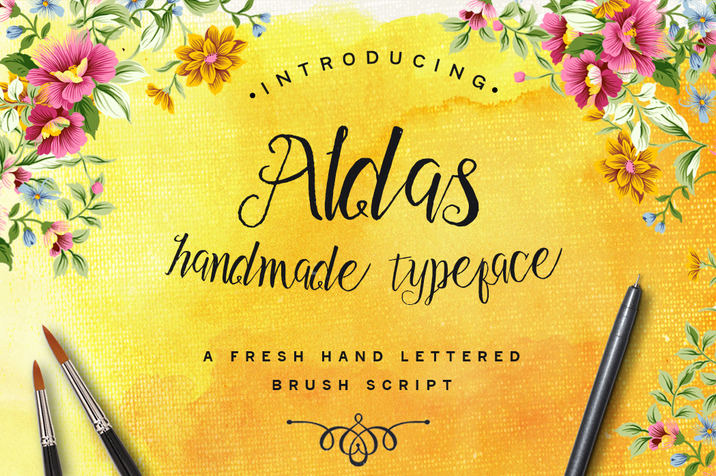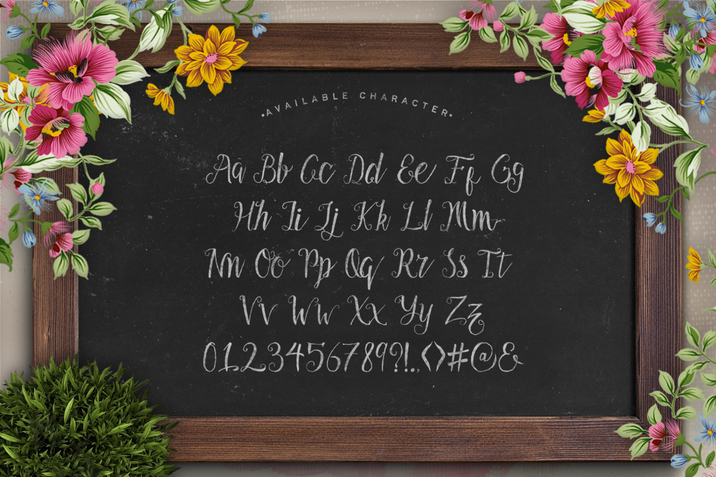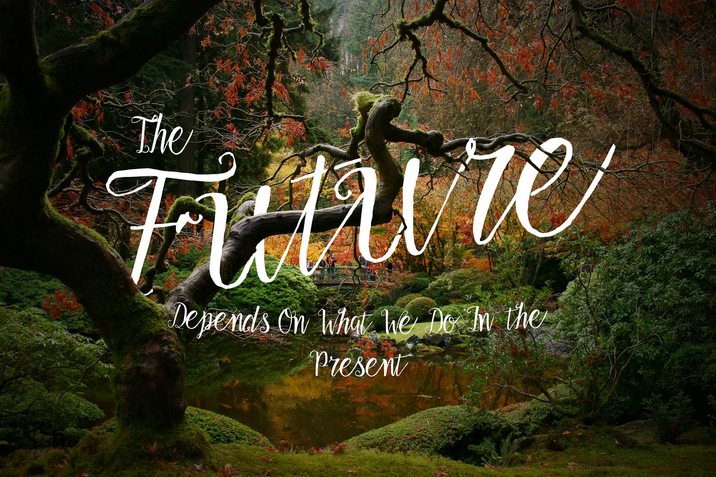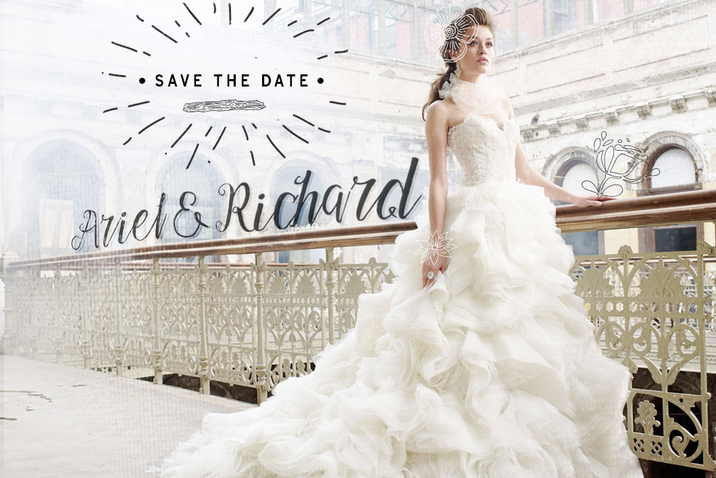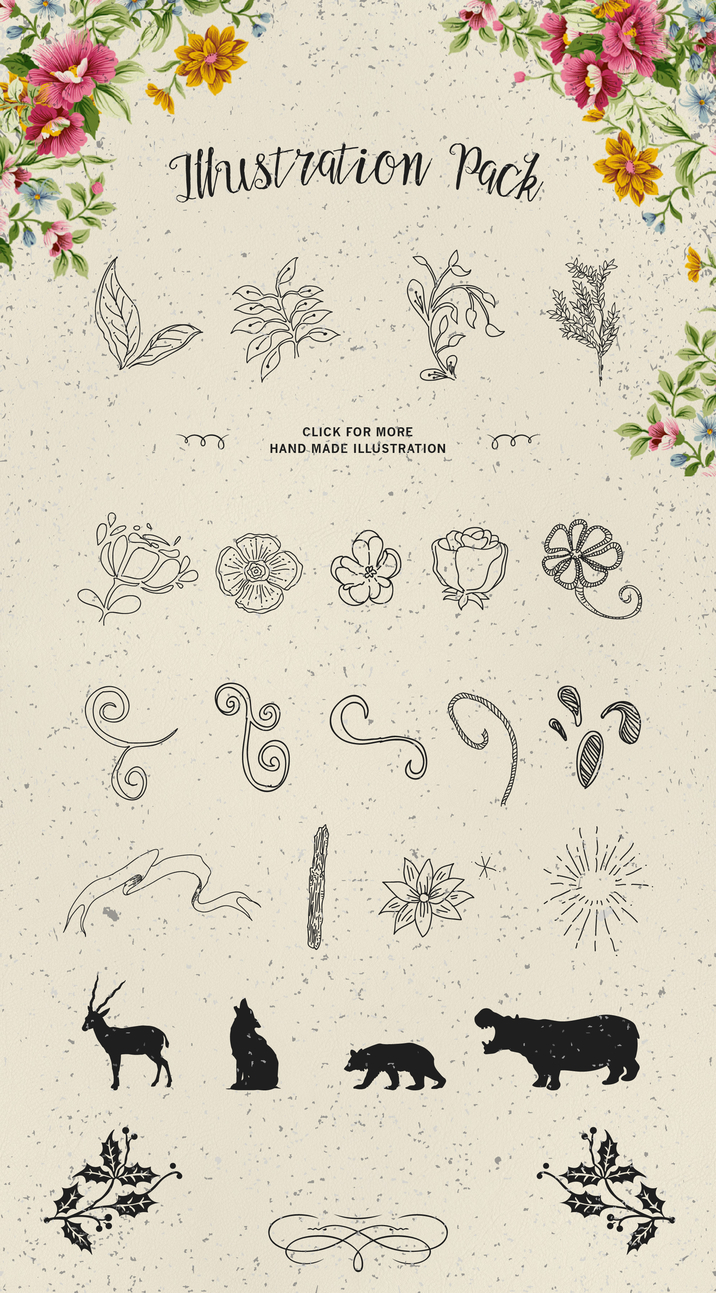
Name : Aldas Typeface & Illustration Pack Files : OTF, AI File Size : 21.35 MB Vector : Yes INTRODUCING ALDAS TYPEFACE Aldas typeface is our freshly brush font it's made from scratch by hand. With uneven characters that will awake your creativity and save your valuable tons of time to make awesome work. This font is suitable for wedding invitation, greeting cards, posters, labels, t-shirt design, etc. This font comes in .TTF & .OTF format and includes 10 numbers, 52 letters that promise a hand drawing looks & Limited symbols. And also there is illustration pack, special for you - You may use this font for commercial use and also you can convert this font into a web font, all for only $12. Please check linked site, for one shot preview : http://aldas.instapage.com/ Thank you ! Link for more information: https://creativemarket.com/wijayarega/196742-Aldas-Typeface-Illustration-Pack